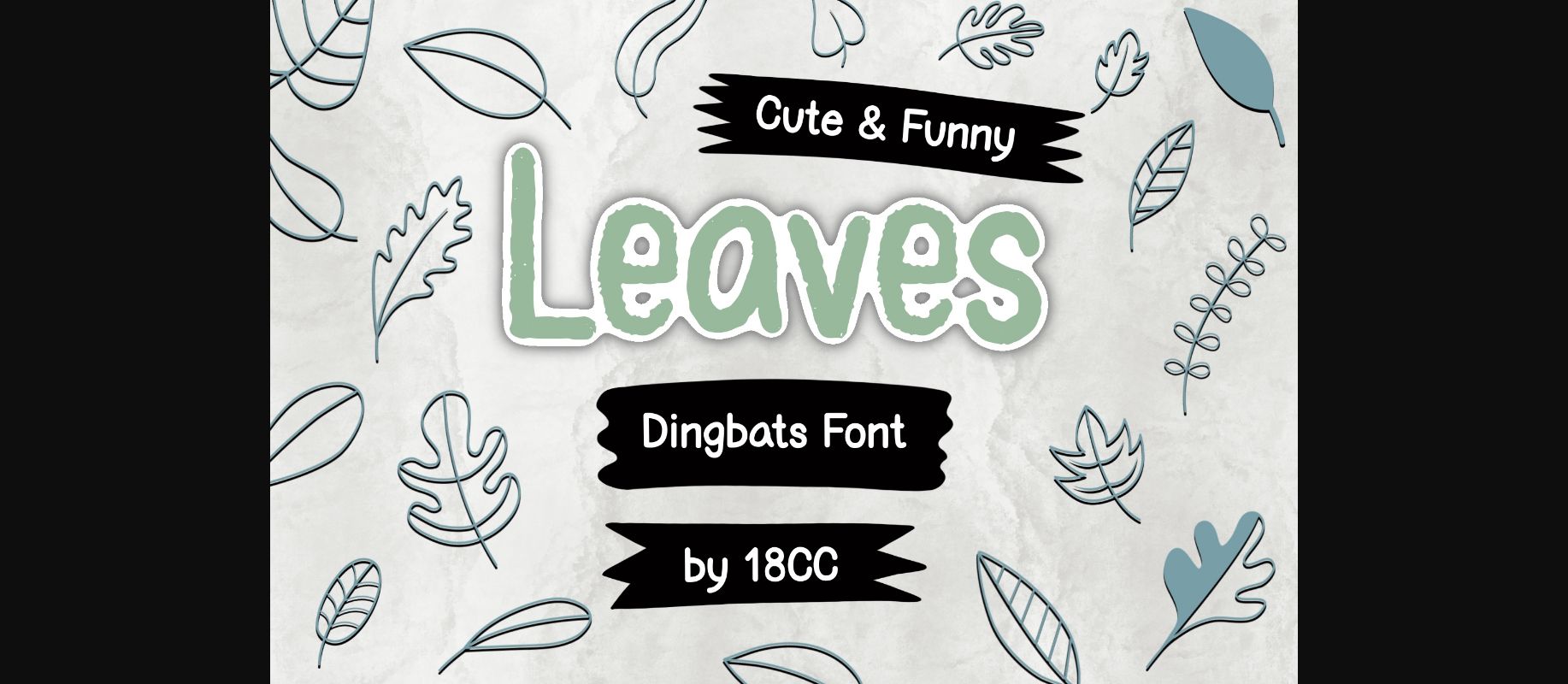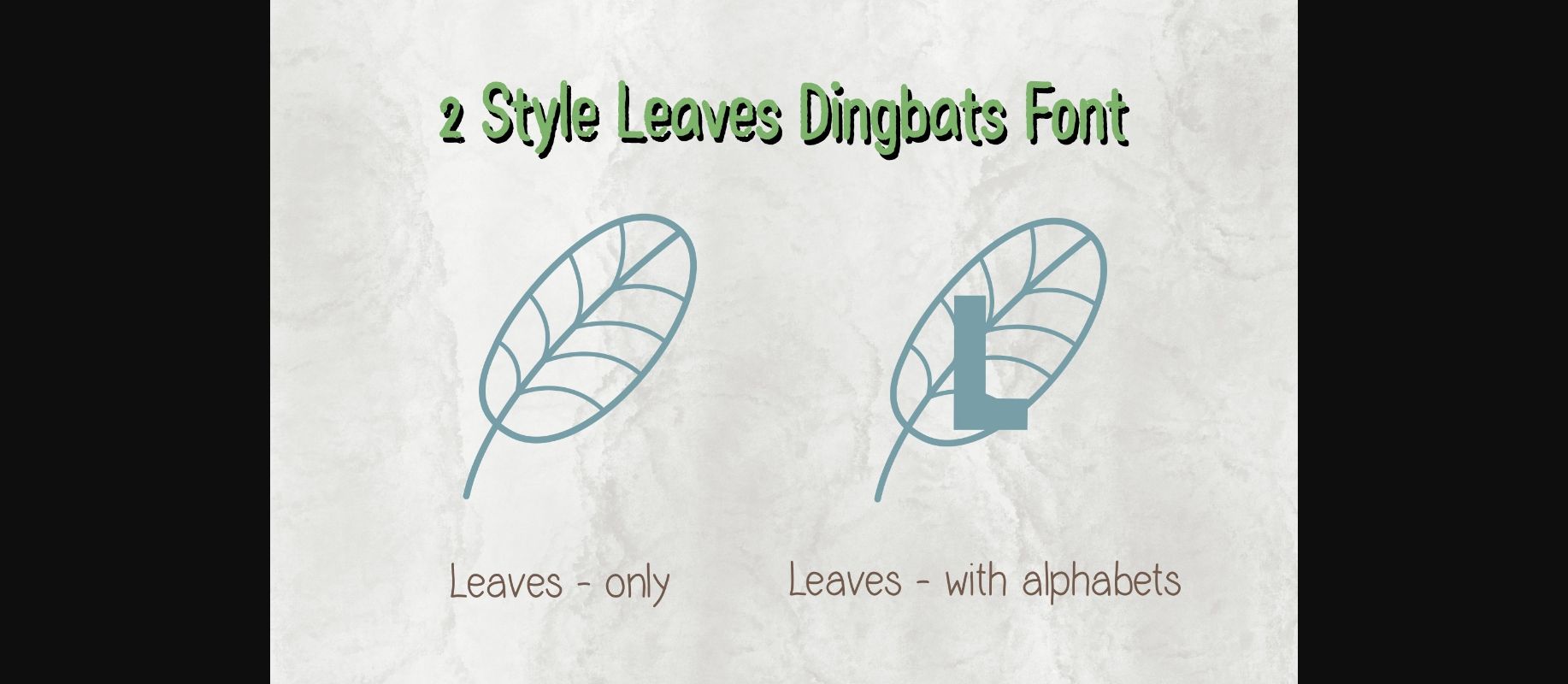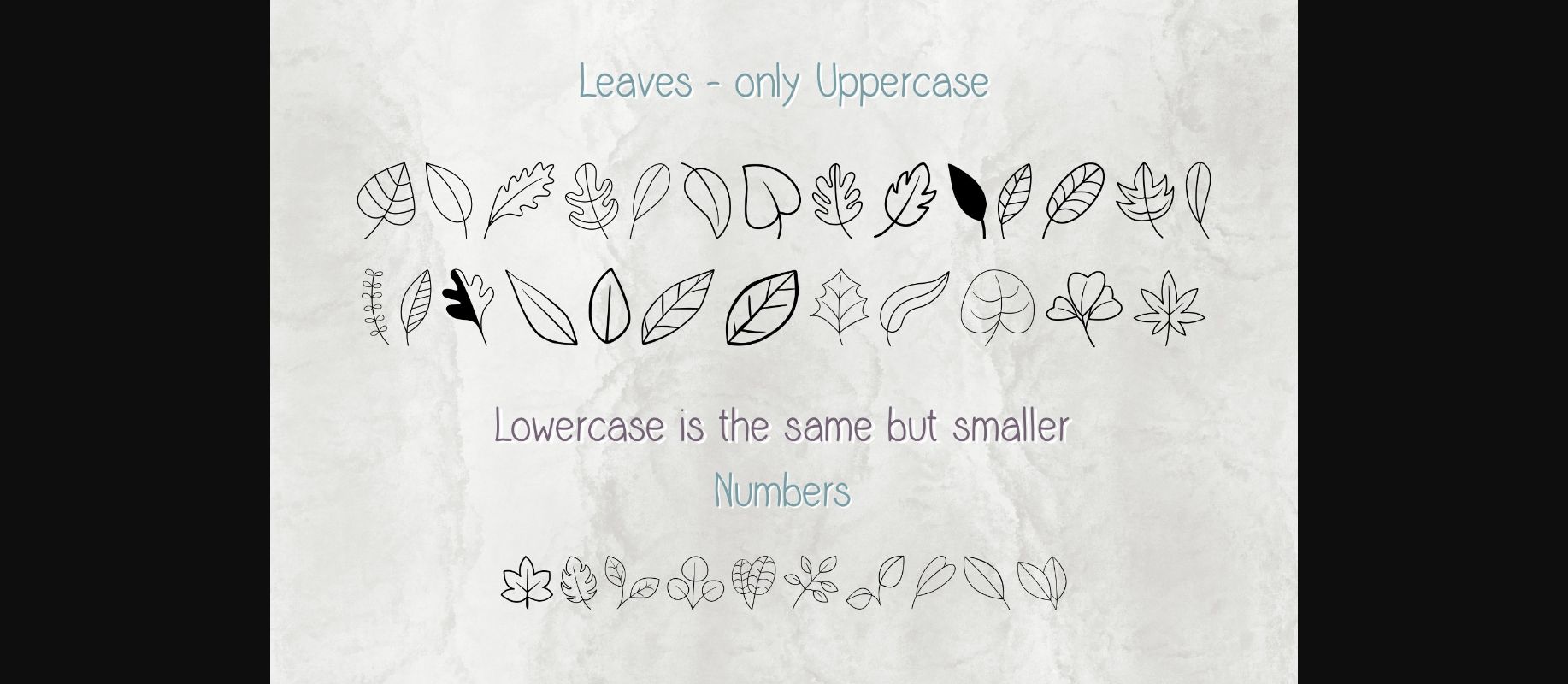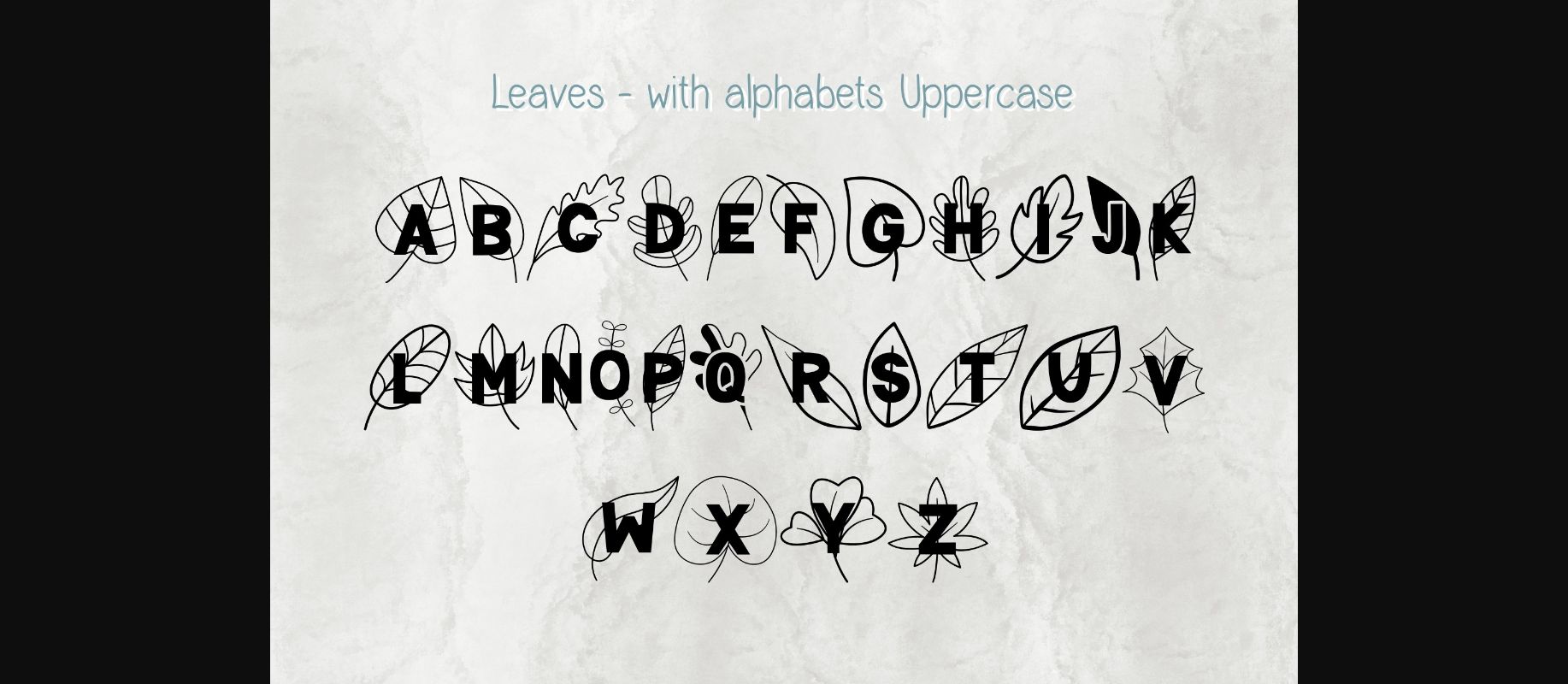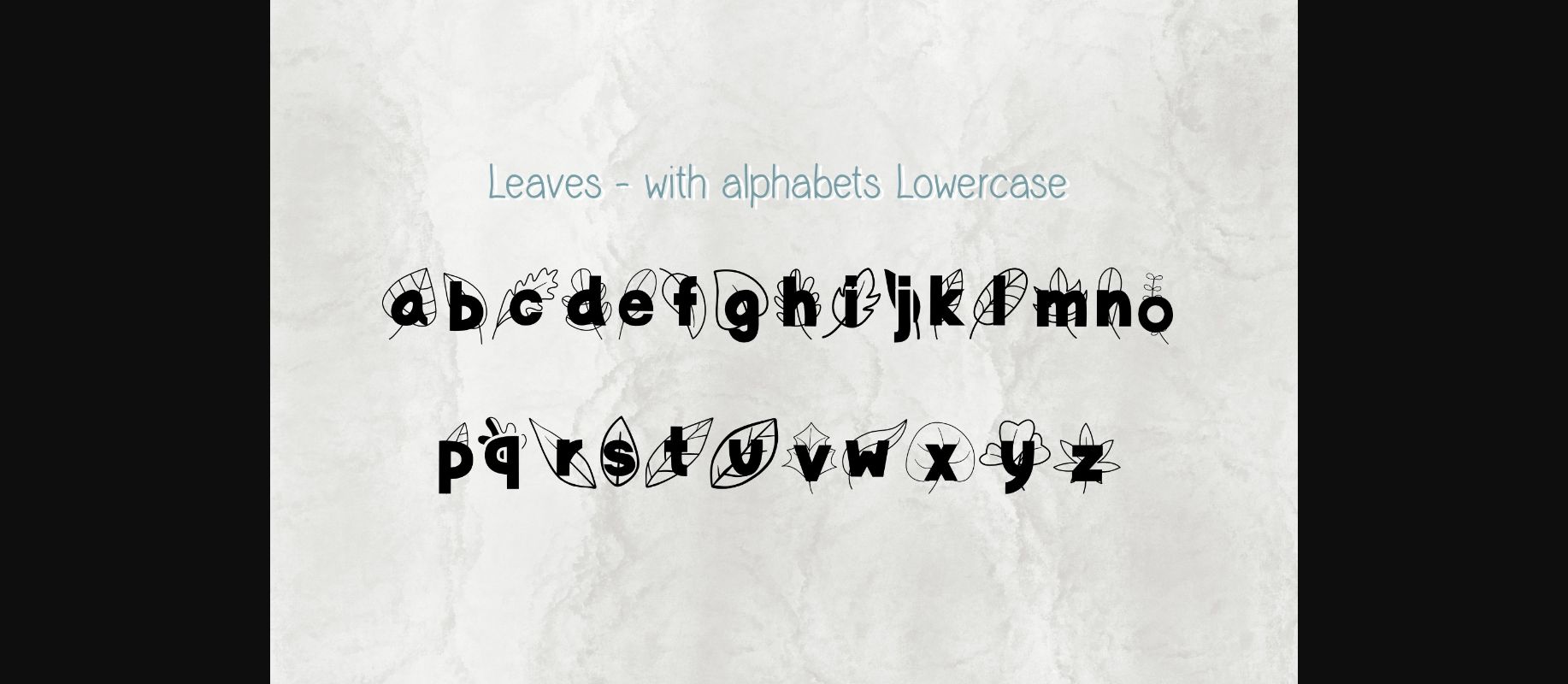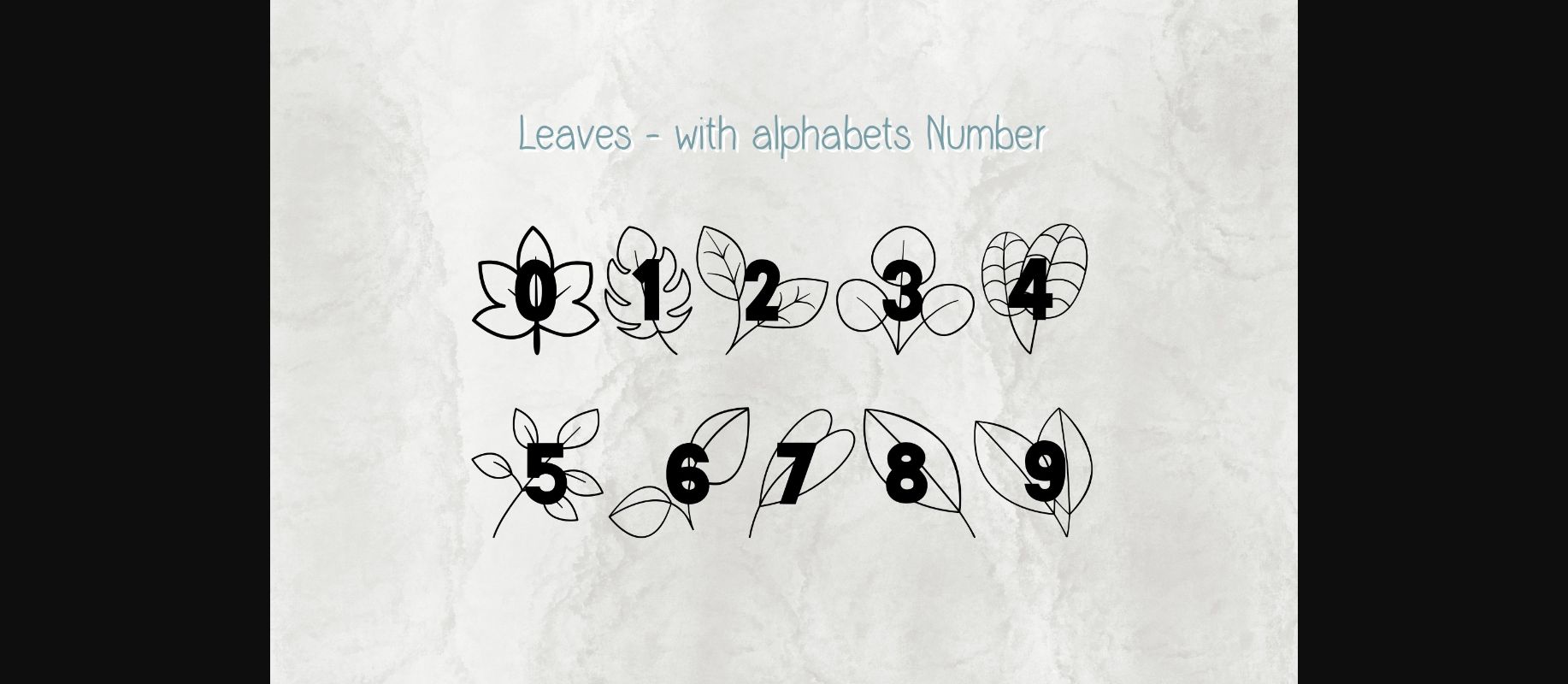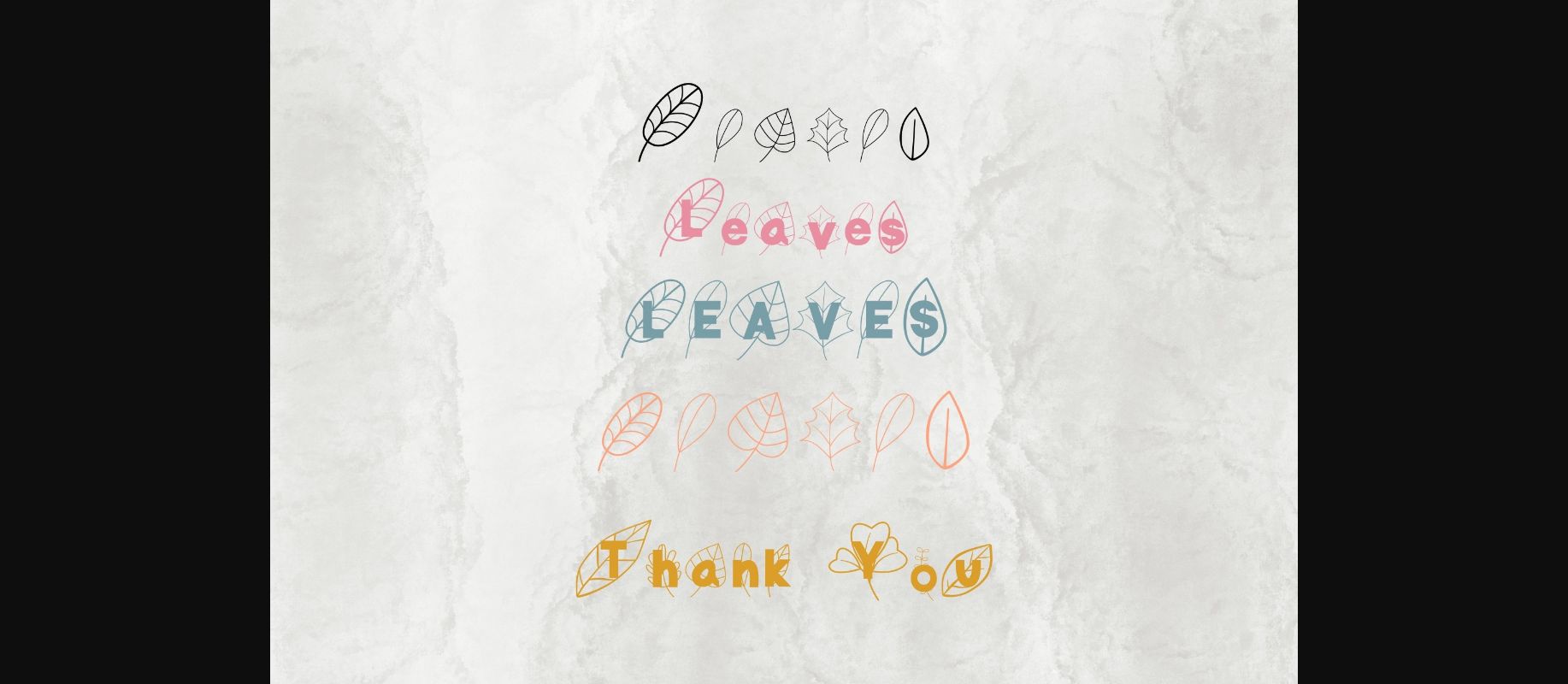
About Leaves Font
Leaves is a cute and fun looking decorative font. This font is the perfect fit for all of your logos, branding, social media, and crafty DIY projects.